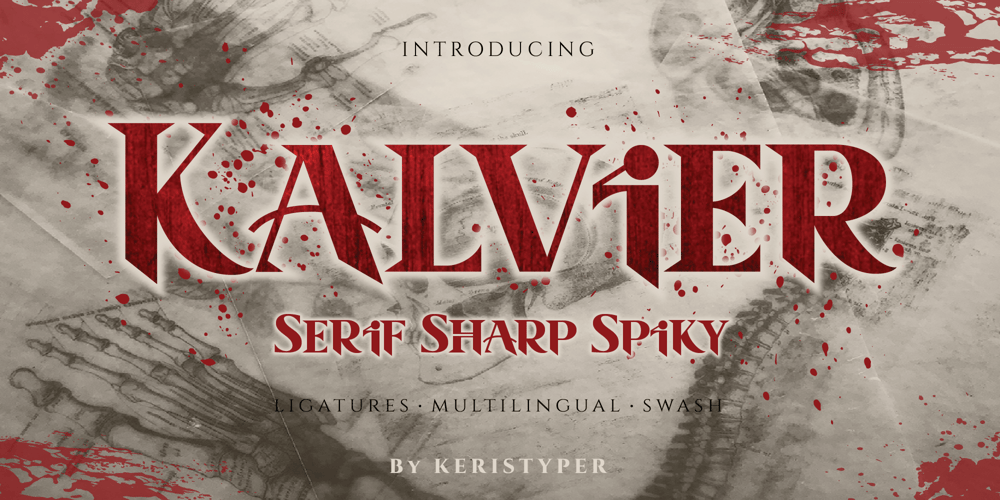
Kalvier Font Family was designed by Tezar Tantular and published by Keristyper Studio. Kalvier contains 1 styles and family package options. Introducing Kalvier a horror display font for your Halloween project with sharp and spiky style. This font is good for logo design, Social media, Movie Titles, Books Titles, short text even long text letters, and good for your secondary text font with sans or serif.**Featured:*** Standard Uppercase & Lowercase* Numeral & Punctuation* Multilingual : ä ö ü Ä Ö Ü ß ¿ ¡* Alternate & Ligature* PUA encodedWe recommend programs that support the OpenType feature and the Glyphs panel such as Adobe applications or Corel Draw. so you can use all the variations of the glyphs.Hope you enjoy our fonts!